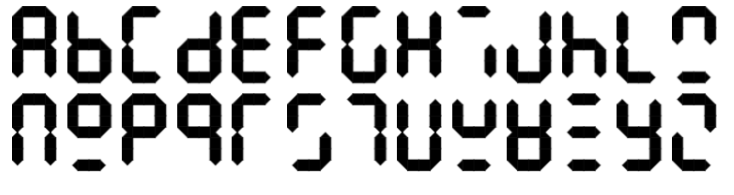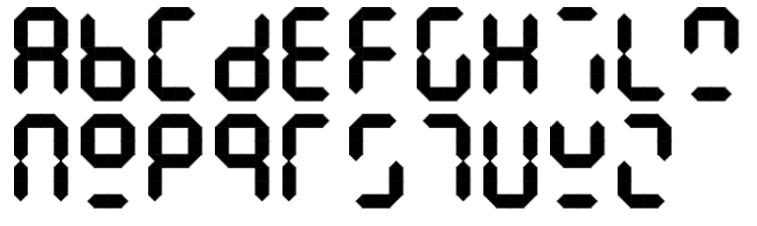
• It can display all 64 characters, with some compromises.
The 7 has a tail on "1234567890."
The T looks like a 7.
Italian?
"The T looks like a 7":
it is a 7
and why is the capital O like the degree symbol?? :v